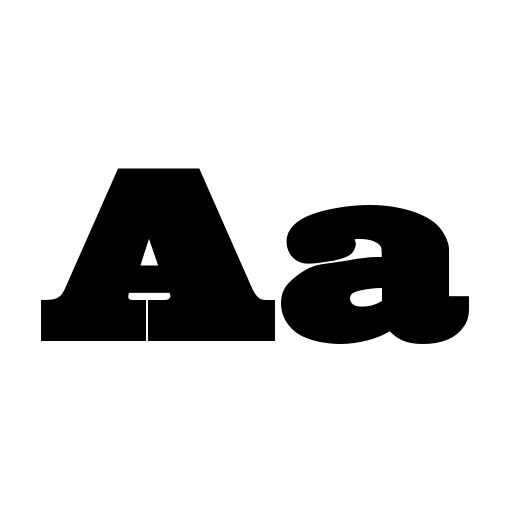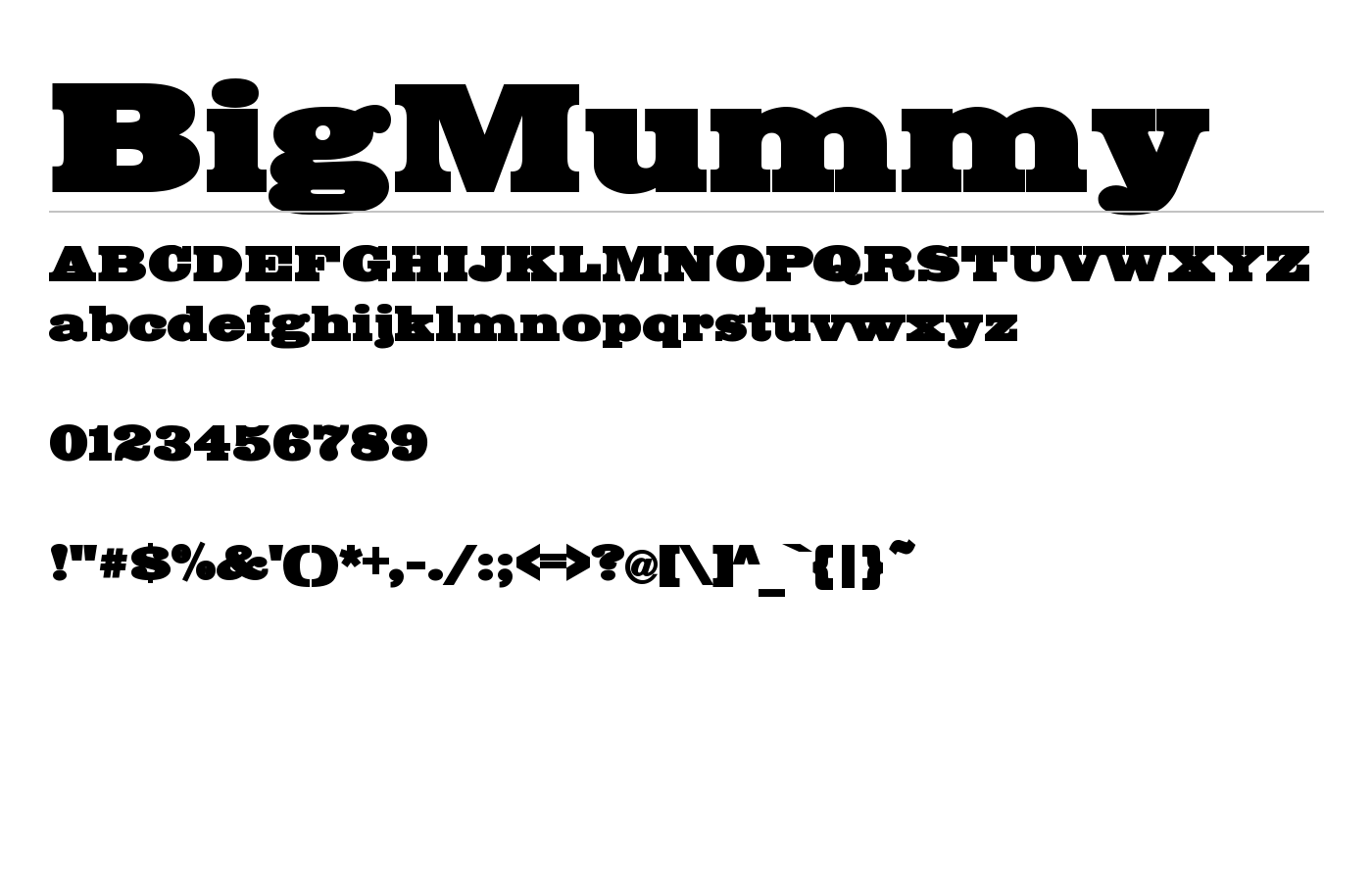
BigMummy is a bold slab serif font with a strong, solid presence characterized by thick, blocky serifs and high stroke contrast. Its sturdy, geometric shapes and tight spacing give it a confident, vintage feel suited for eye-catching headlines, logos, and branding that demands attention with a touch of retro charm. This font works best in display contexts where bold impact and readability are key.
BigMummy Font
About BigMummy Font